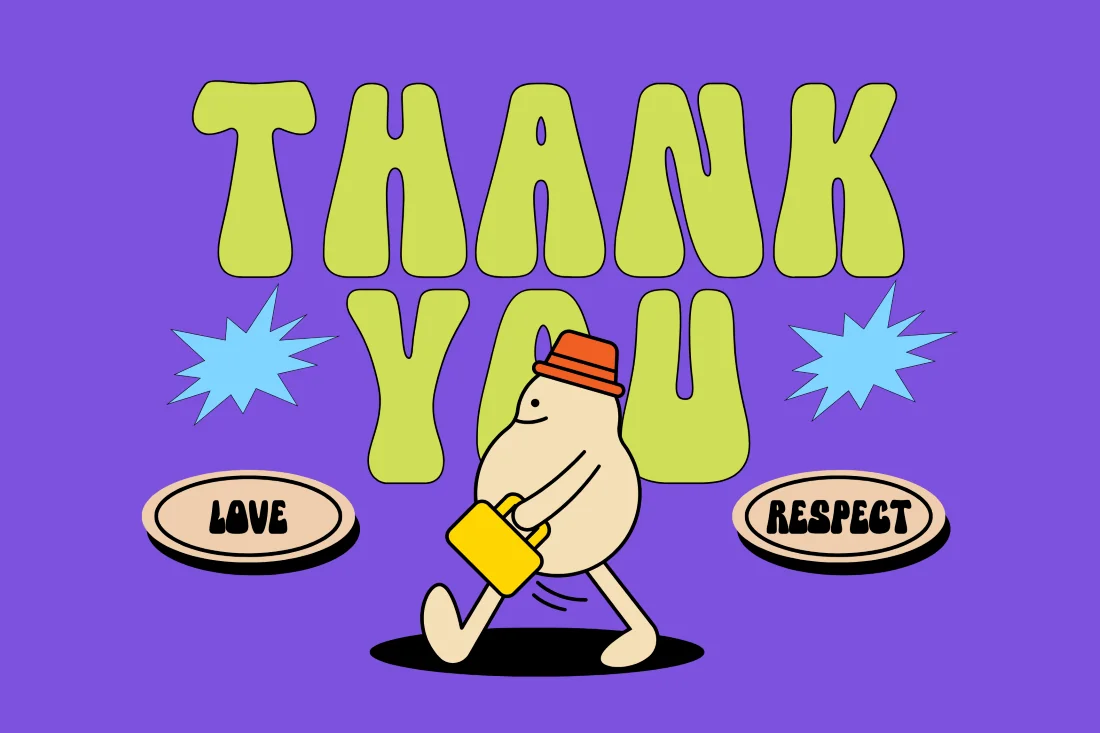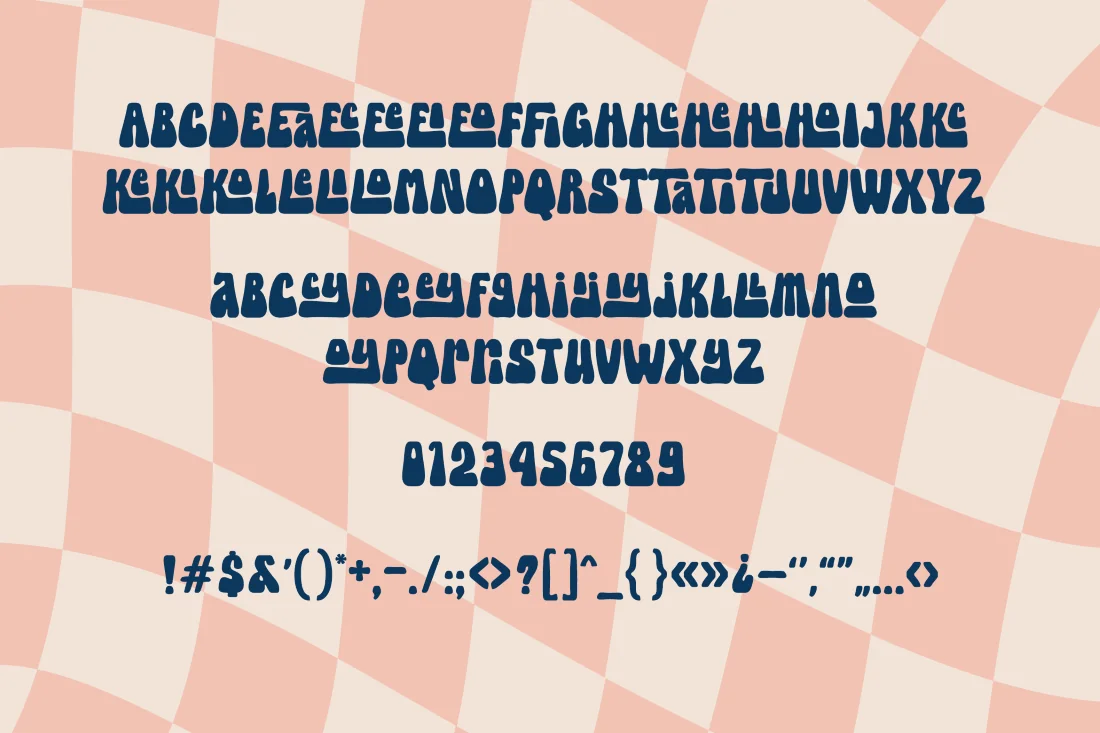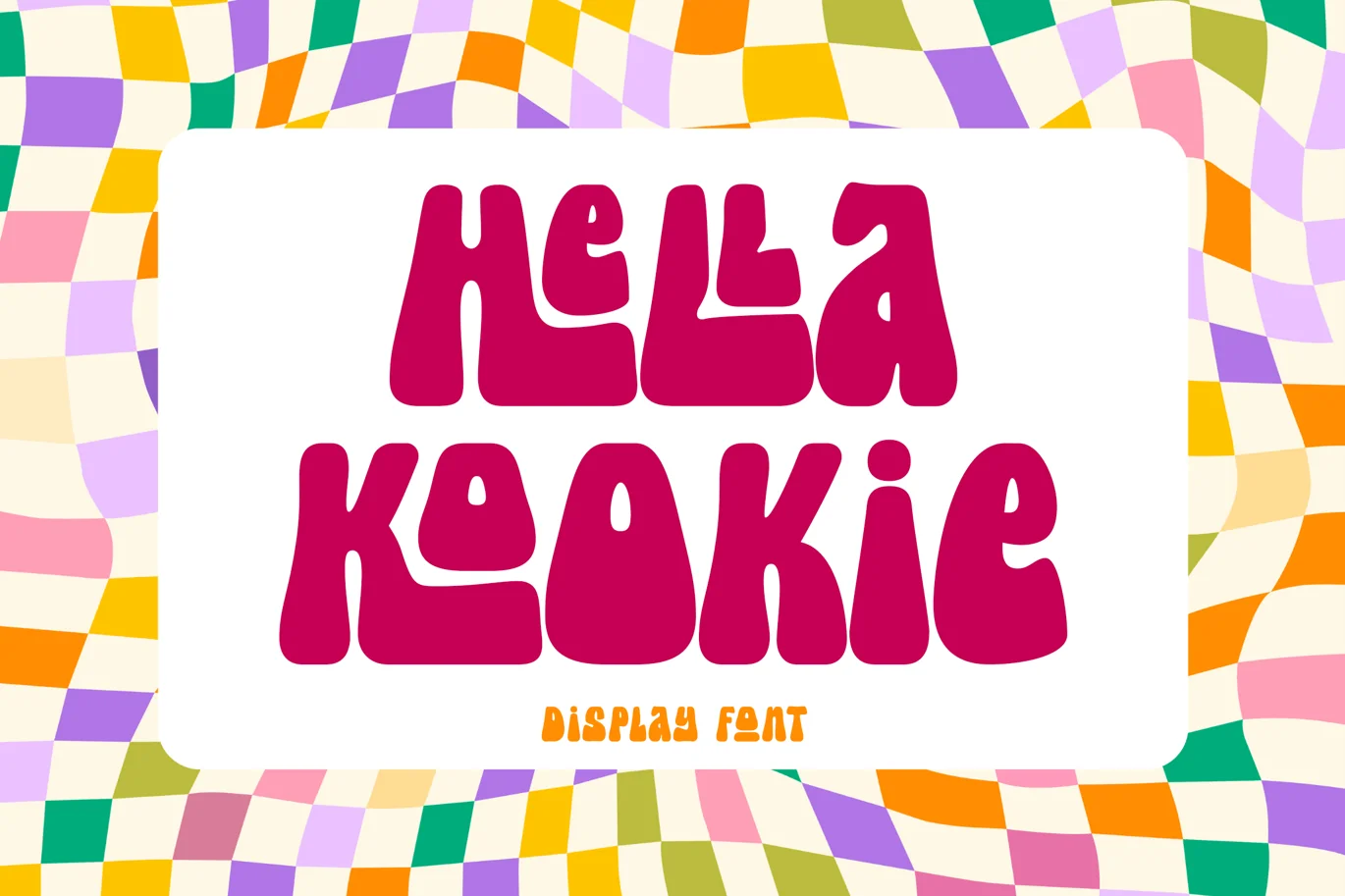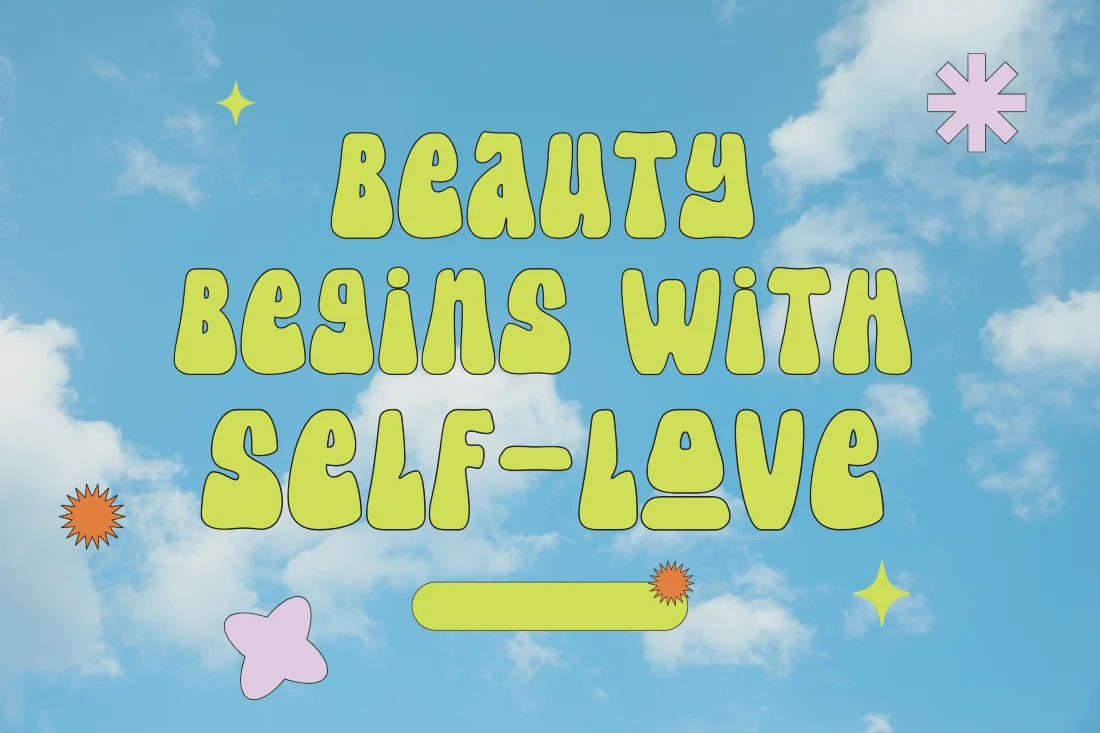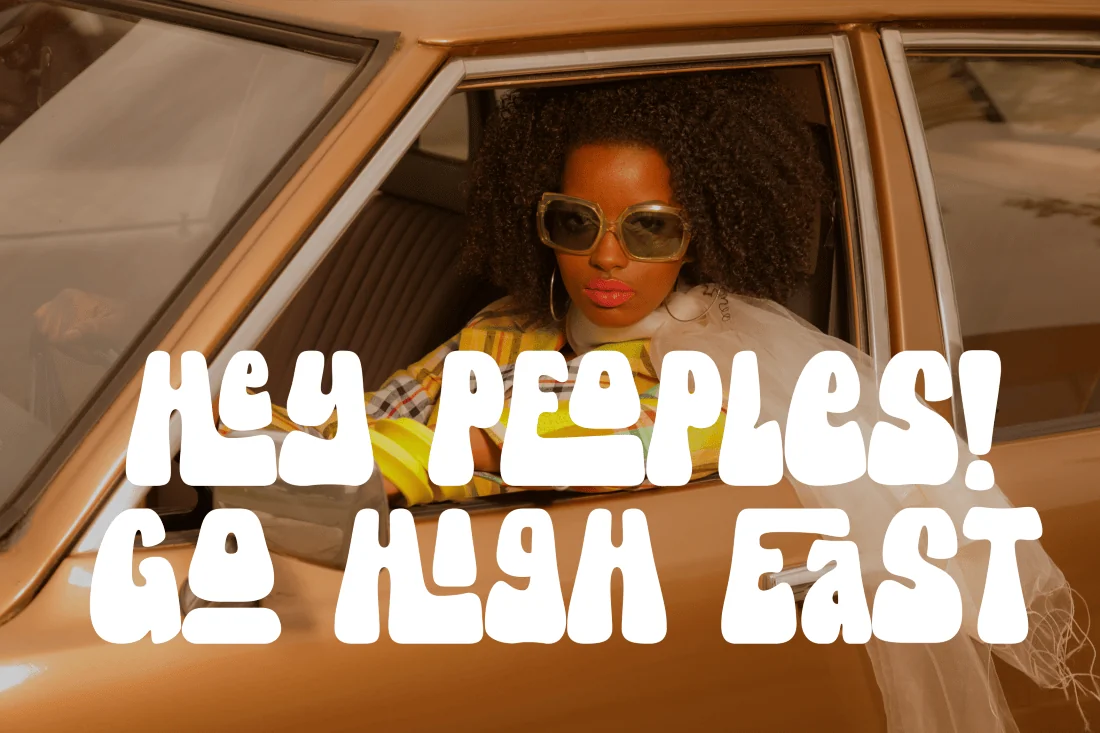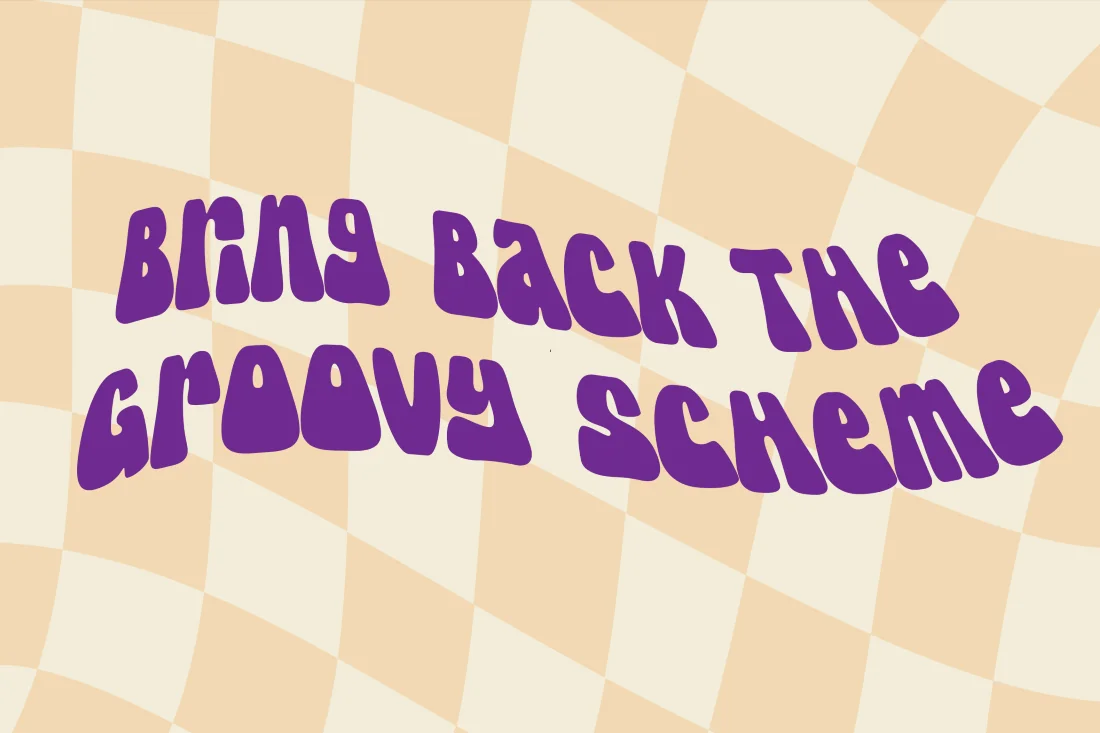
Hella Kookie – 70s Retro-Modern Display Font
Introducing “Hella Kookie” – the epitome of a bold and groovy retro-modern display font that takes you on a nostalgic journey to the vibrant 70s, 80s, and 90s. This font is designed to bring back the playful and fun spirit of those iconic decades, making it a perfect choice for eye-catching displays and headlines.
With its thick and fat letterforms, “Hella Kookie” stands out effortlessly, making your message pop and capture attention instantly. This font beautifully encapsulates the essence of the popular retro styles, giving your designs a unique and trendy touch.
Whether you’re working on digital posters, social media, branding, or any creative project that demands a dose of nostalgia, “Hella Kookie” is your go-to choice. Its versatility allows you to infuse a groovy, retro vibe into any design while maintaining a modern twist. Elevate your creative game with “Hella Kookie” and let your projects exude the bold and vibrant spirit of the 70s, 80s, and 90s.